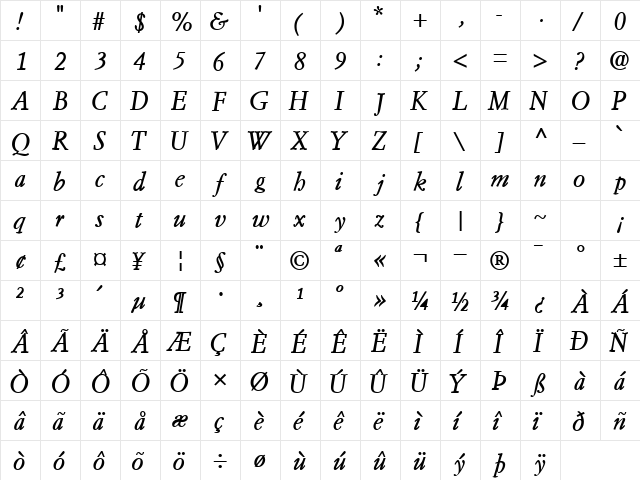
FlorentineGaramondSSK Bold Italic
Design Context for FlorentineGaramondSSK Typeface
FlorentineGaramondSSK offers clean, dependable letterforms without strong stylistic allegiance, making it a practical choice for designers who need flexibility. The slanted form adds forward momentum and visual energy. The heavy weight commands attention and anchors typographic hierarchies.